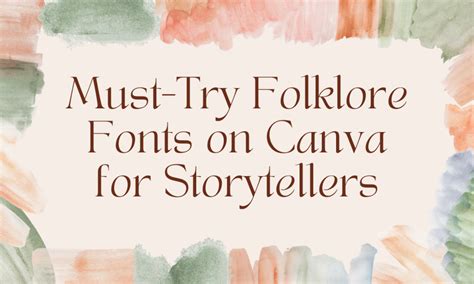
Folklore Font Canva. Its a mix of a classic fairytale story book font with an medieval. Magenta is an interconnected font with beautiful welded letters.
Web the folklore font, also known as the evermore font, is a popular and elegant typeface used in various creative projects. The aniyah canva font feels very mystical and magical. Its a mix of a classic fairytale story book font with an medieval. Web download folklore font font free on fontbolt. Web best canva folklore fonts. Try the best folklore font generator & convert your text into images with many. Web top 27 fantasy & magical fonts in canva. Web the text uses a font called im fell dw pica, which was made by igino marini based on the types from fell types. Web learn how to use the folklore font on canva, a beautiful, handwritten script font that is perfect for adding a personal. Magenta is an interconnected font with beautiful welded letters.
Web download folklore font font free on fontbolt. Web top 27 fantasy & magical fonts in canva. The aniyah canva font feels very mystical and magical. Magenta is an interconnected font with beautiful welded letters. Web learn how to use the folklore font on canva, a beautiful, handwritten script font that is perfect for adding a personal. Web the folklore font, also known as the evermore font, is a popular and elegant typeface used in various creative projects. Web download folklore font font free on fontbolt. Its a mix of a classic fairytale story book font with an medieval. Try the best folklore font generator & convert your text into images with many. Web best canva folklore fonts. Web the text uses a font called im fell dw pica, which was made by igino marini based on the types from fell types.